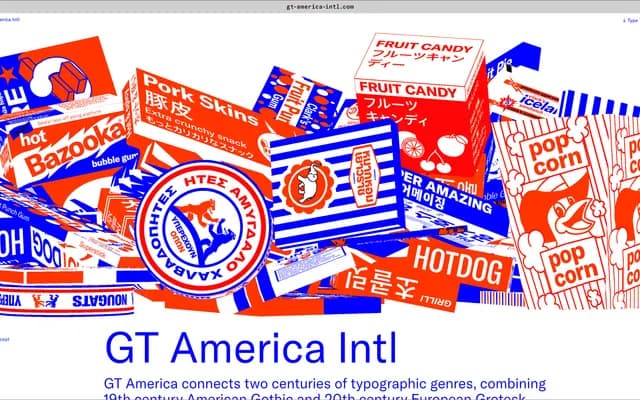
GT America
Grilli Type · Noël Leu with Seb McLauchlan · 2016
GT America specimen from Grilli Type
A 84-style neo-grotesque by Noël Leu that bridges American Gothics and European Neo-Grotesks across six widths.
A neo-grotesque sans by Noël Leu with Seb McLauchlan, released in 2016 and offered in 84 styles. Grilli position it as the missing bridge between 19th century American Gothics and 20th century European Neo-Grotesks, drawing the best of each tradition in the widths and weights where they work best. The family runs from Compressed through Expanded and includes a matching Mono, with Cyrillic, Greek and Vietnamese extensions.
Grilli describe it as the missing bridge between 19th century American Gothics and 20th century European Neo-Grotesk typefaces, using the best design features from both traditions in the widths and weights where they function optimally.